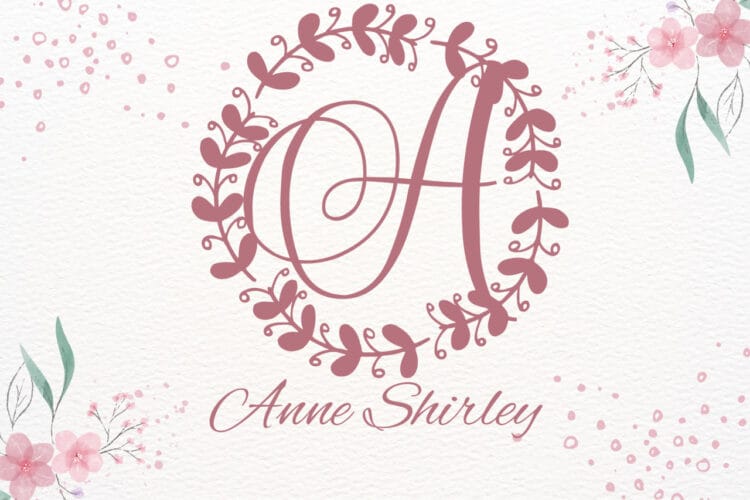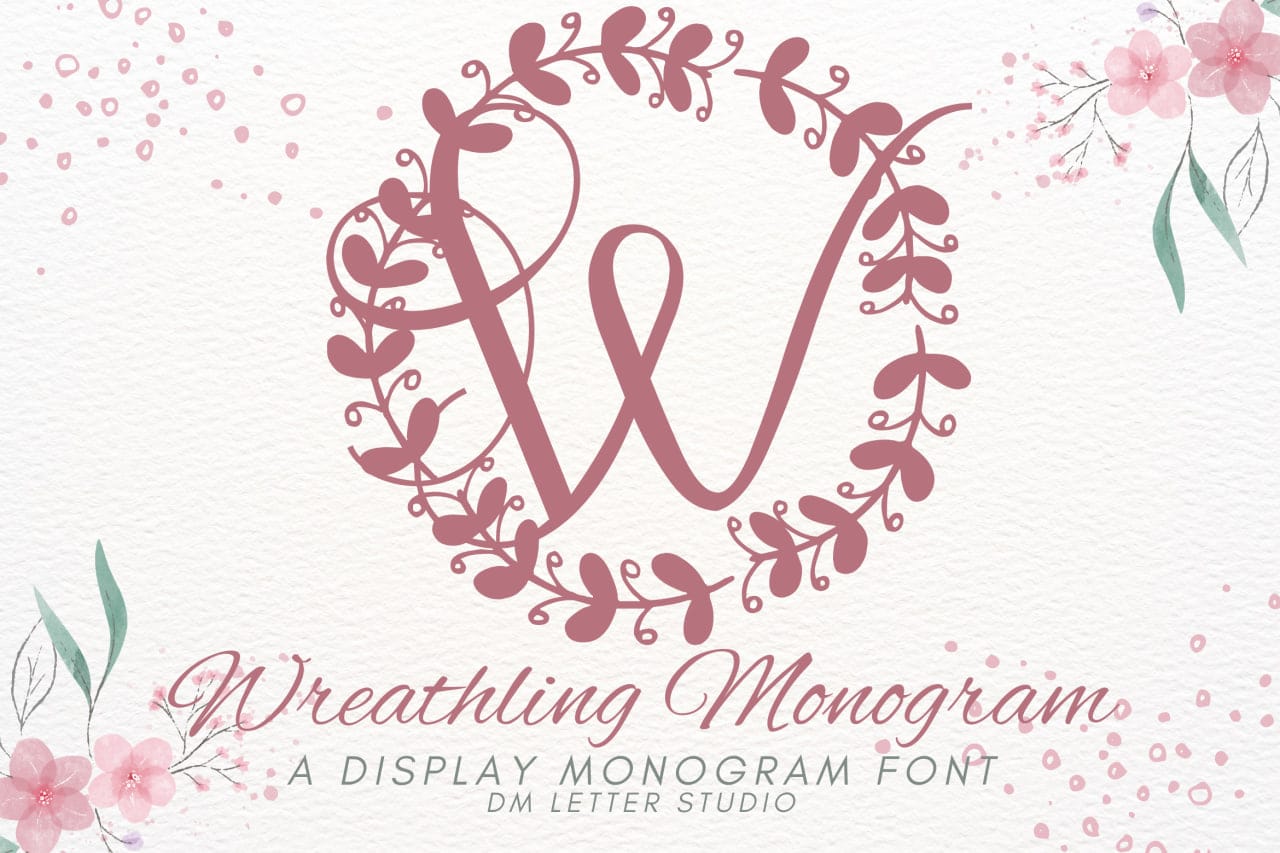
Meet Wreathling Monogram Font
Wreathling Monogram turns initials into charming wreath-style emblems with a soft, balanced look. The design blends delicate greenery details with clean letterforms, creating monograms that feel elegant yet approachable. Each character stays clear at any size, so small tags remain readable while larger designs look polished and gift-ready. Use Wreathling for weddings, baby showers, boutique branding, stationery, keepsake gifts, and premium packaging. As a result, your designs feel warm, natural, and beautifully finished.
Why Wreathling Monogram sells
Fast layouts with the Wreathling Monogram Font
Start with a central initial and let the wreath frame it naturally. After that, add names or dates using a soft serif or clean sans serif. Because Wreathling holds its shape at small sizes, labels, stickers, cards, and tags stay crisp and readable. In addition, it works beautifully with oval borders, thin dividers, ribbon elements, and subtle floral accents. Finally, save color palettes like sage and cream, eucalyptus and ivory, blush and linen, or charcoal and soft gold to reuse across collections.
Creative uses and quick wins
Wedding monograms, invitation covers, and save-the-date cards
Logo seals, certificates, and boutique brand marks
Gift tags, stickers, and keepsake packaging
Labels for candles, soap, skincare, tea, and handmade goods
Design tips for Wreathling Monogram Font
Keep the monogram as the focal point and use a separate font for supporting text. Also, give it enough breathing room so wreath details stay readable at smaller sizes. For a premium finish, try foil stamping, embossing, or letterpress on thick or textured stock. Finally, export at 300 DPI for print and at 2× size for web so edges remain smooth everywhere.